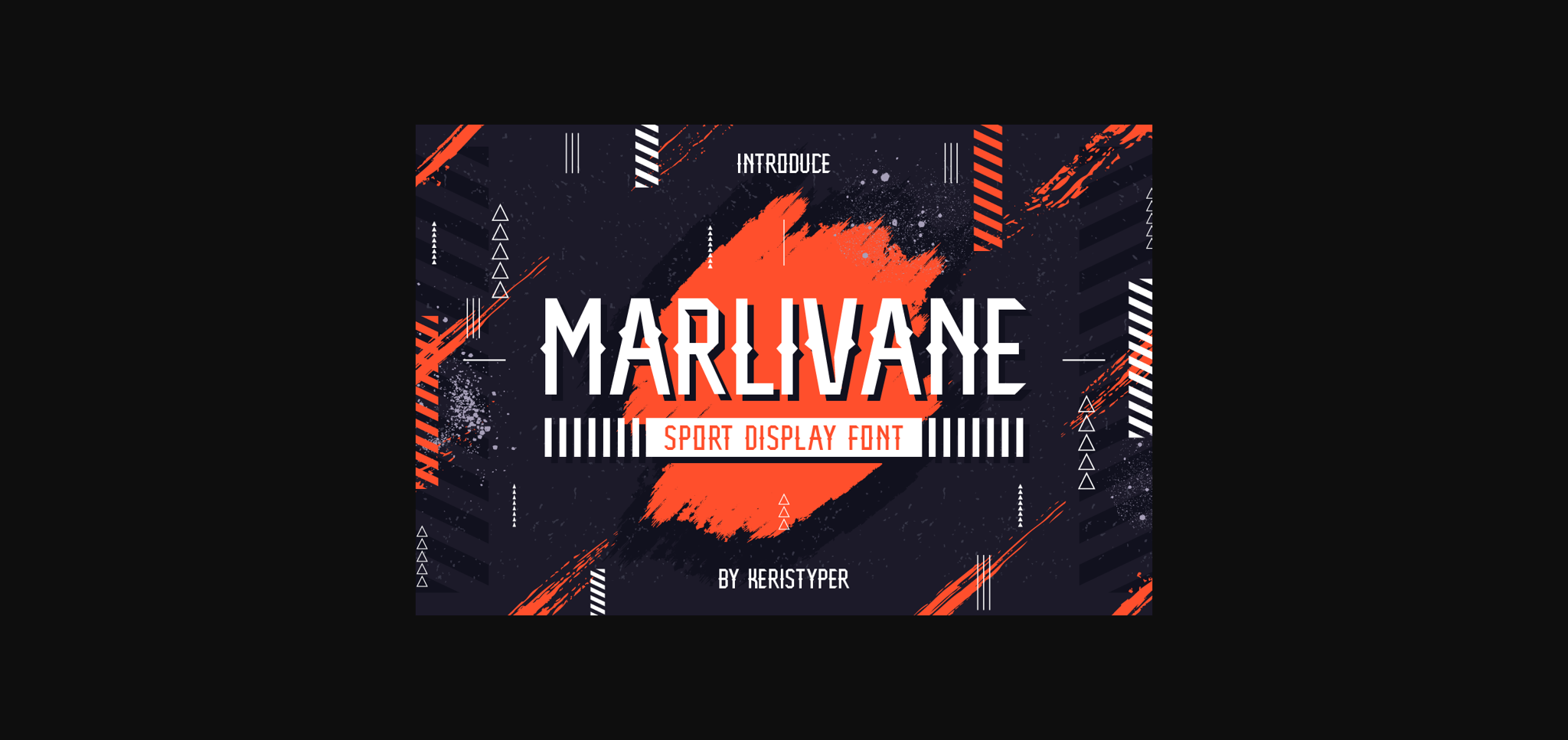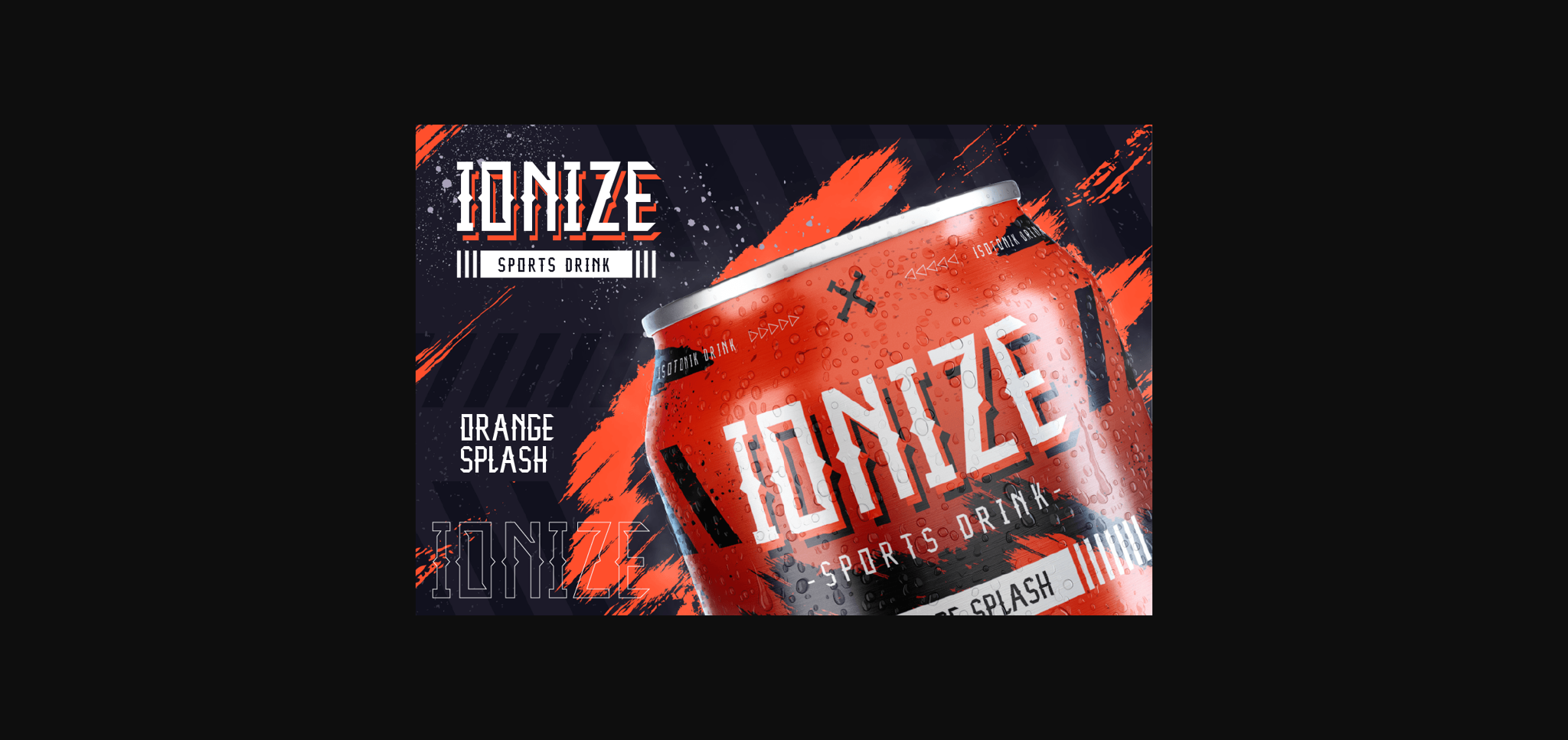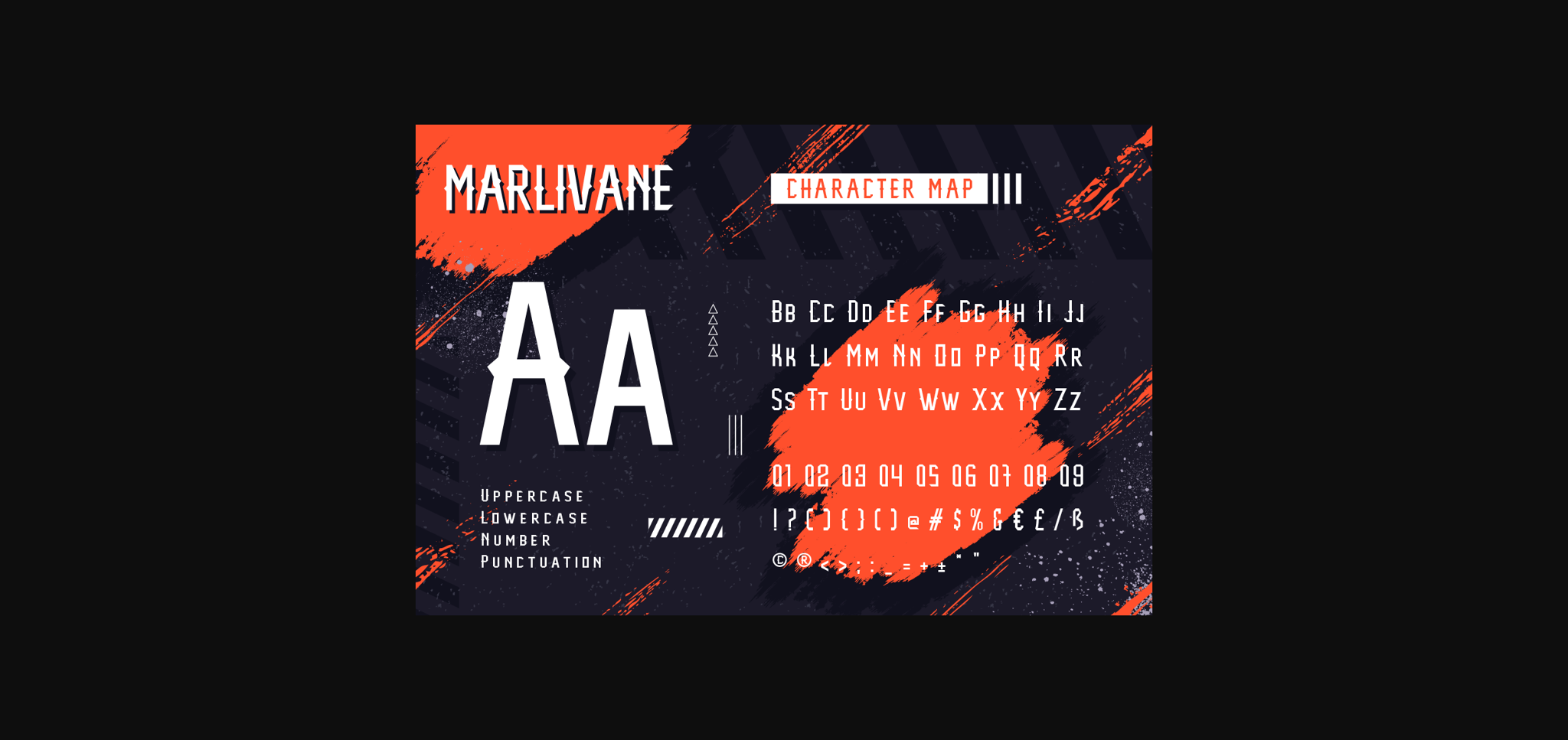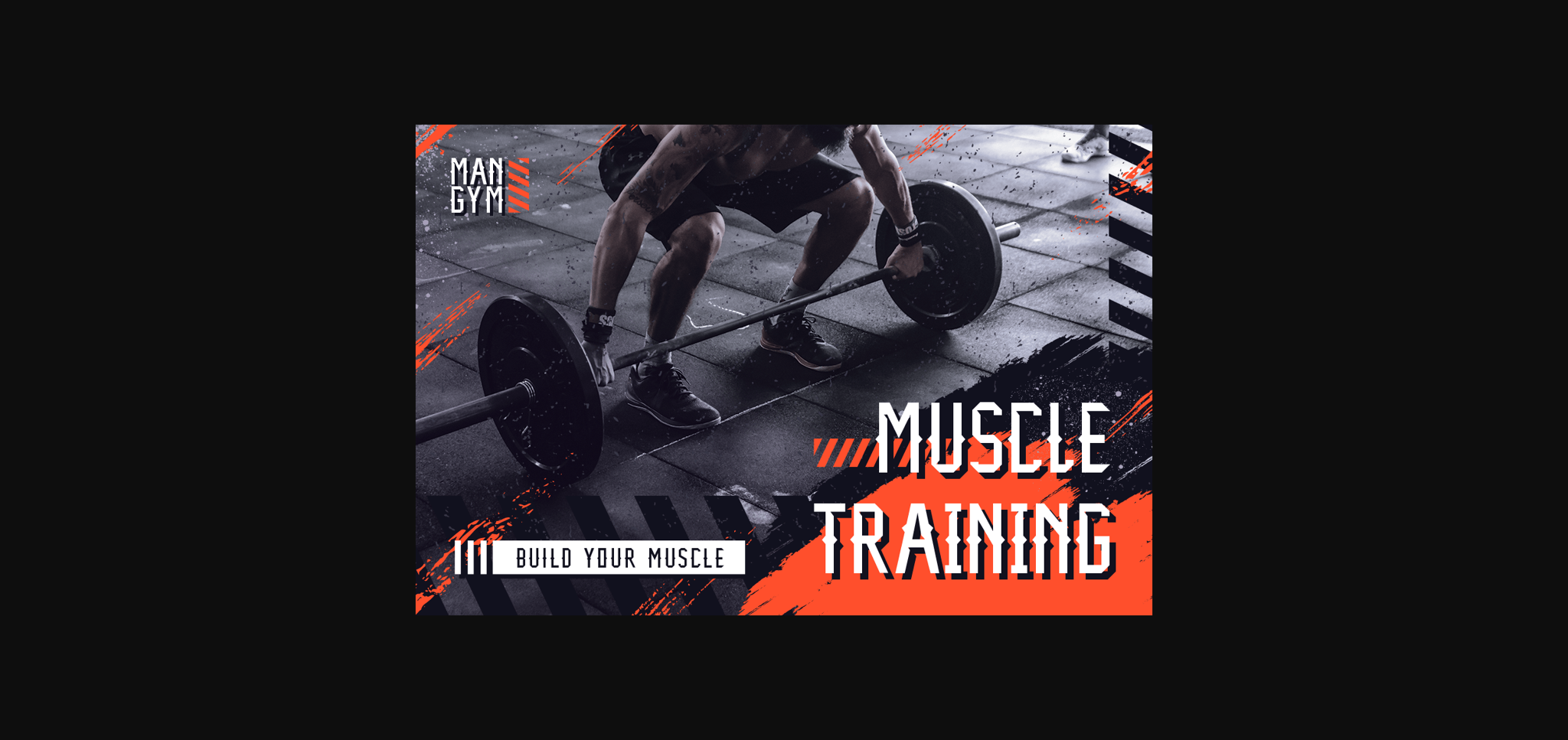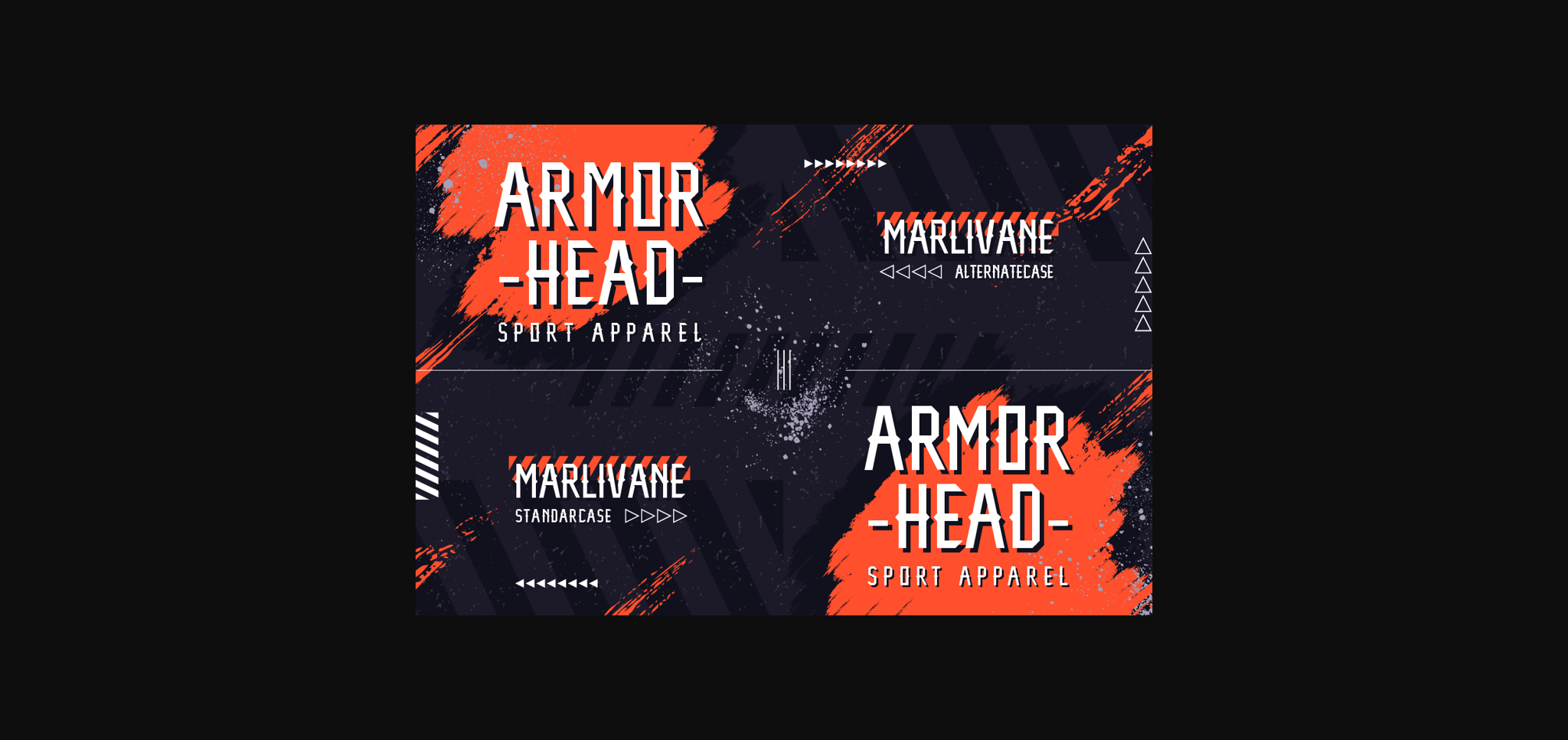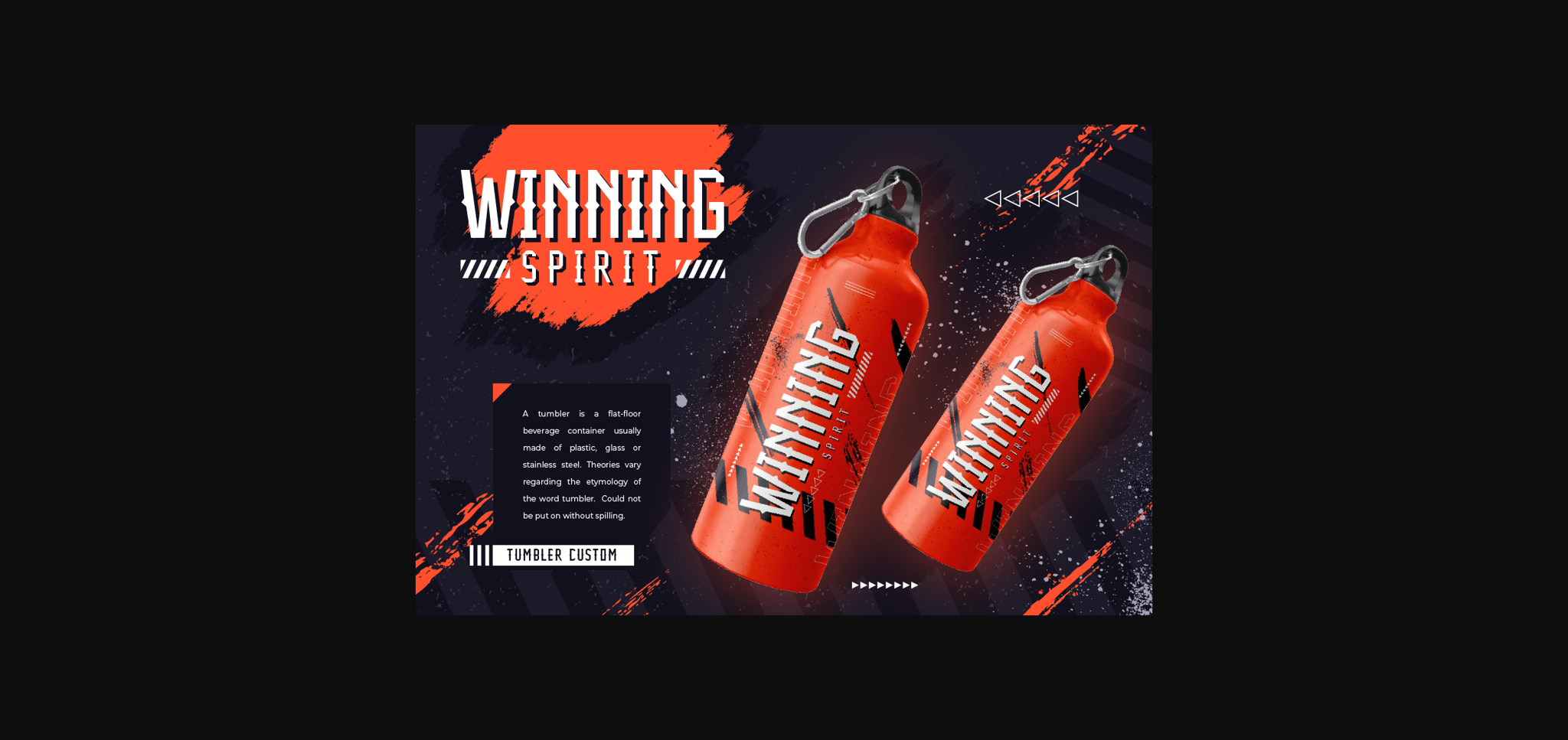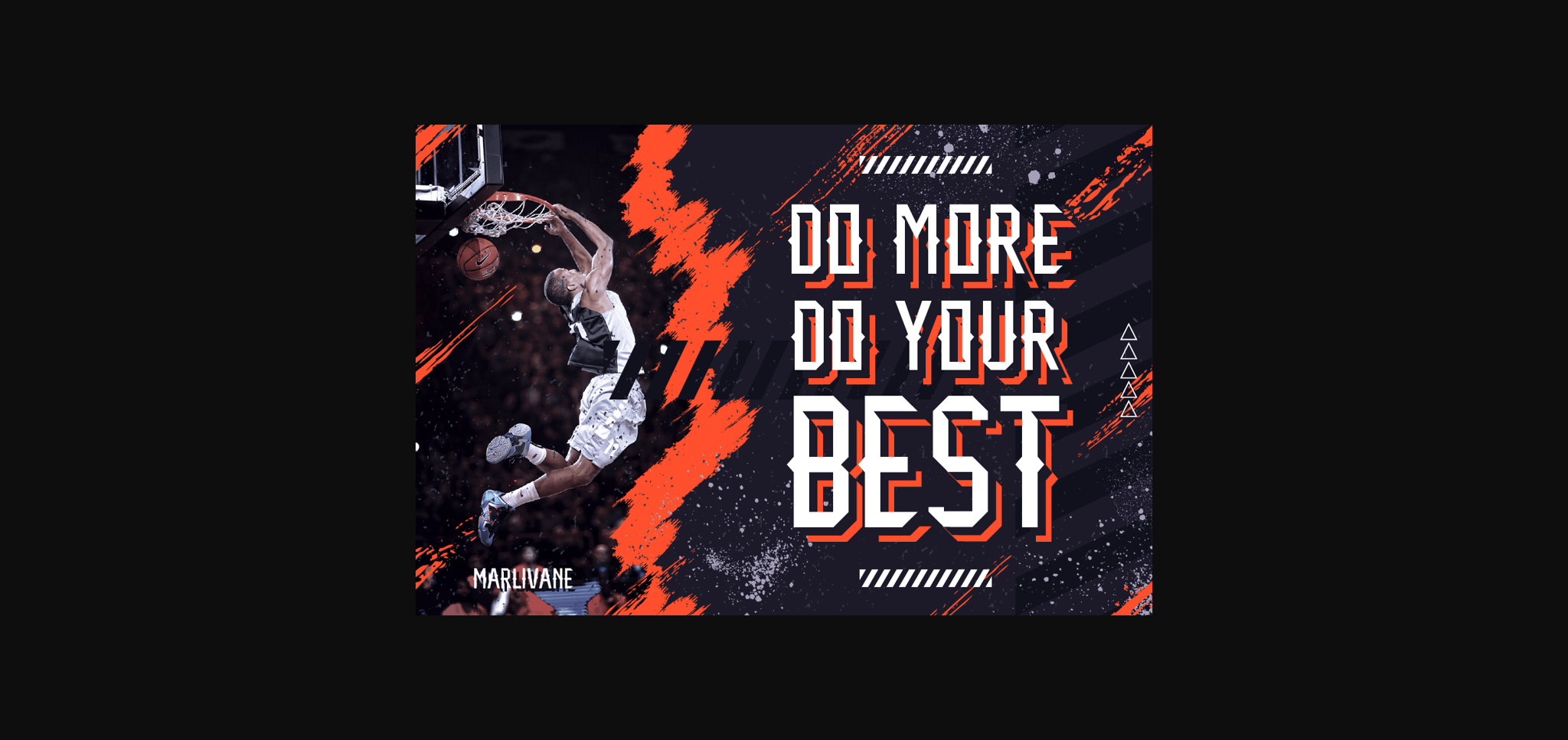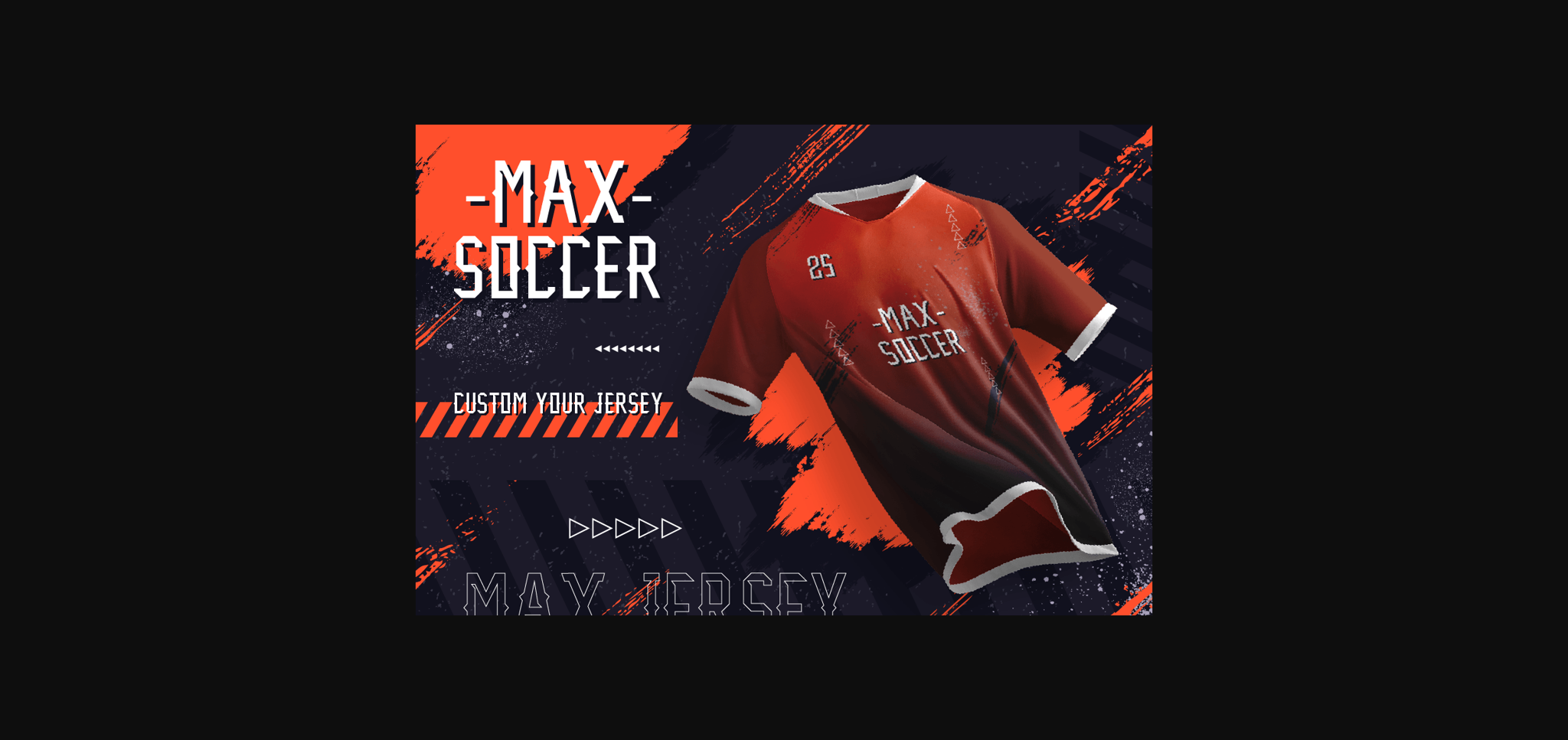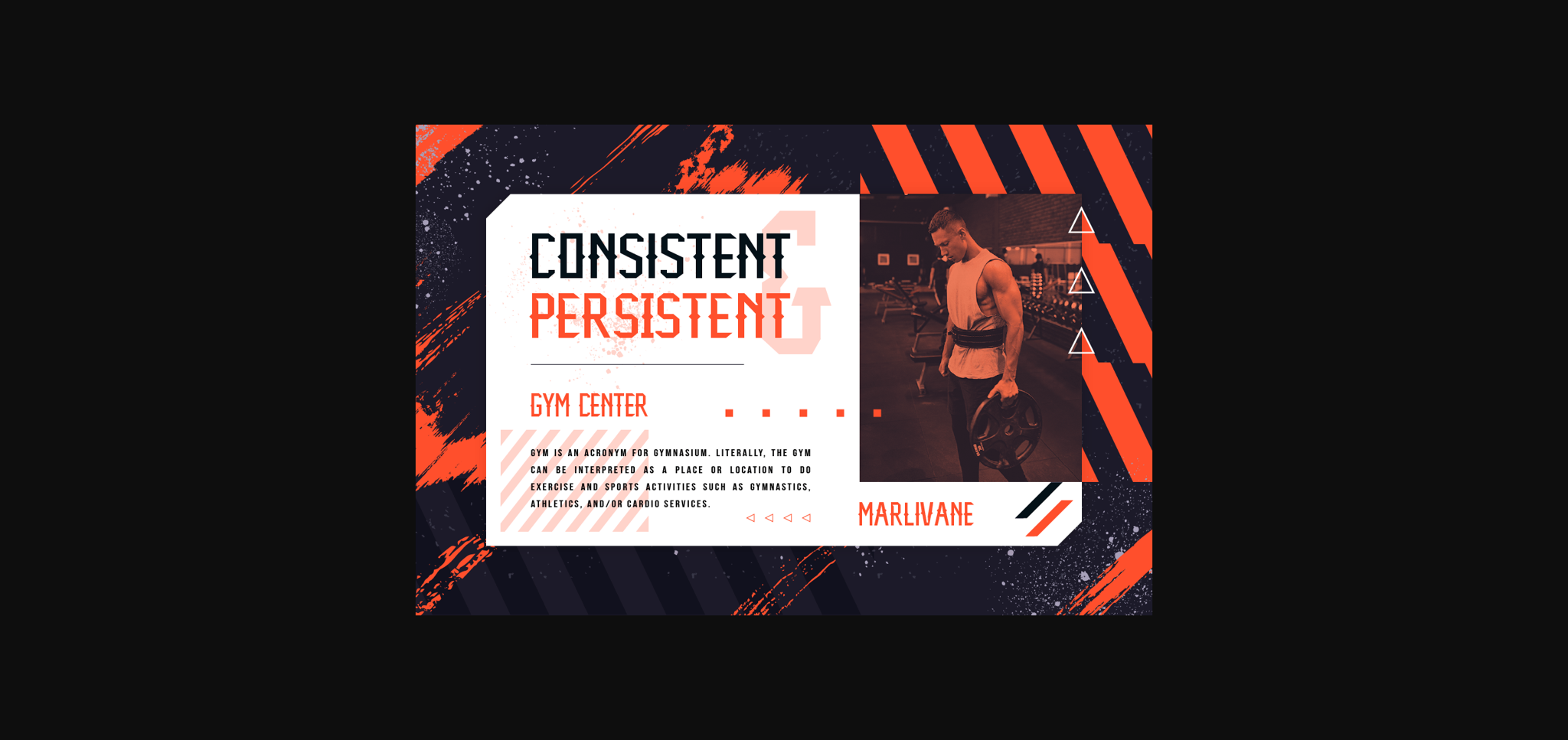
About Marlivane Font
Marlivane is a sports display font with a strong character, suitable for esports or sports activity. This font is good for logo design, Social media, Movie Titles, Book Titles, short texts even long texts.